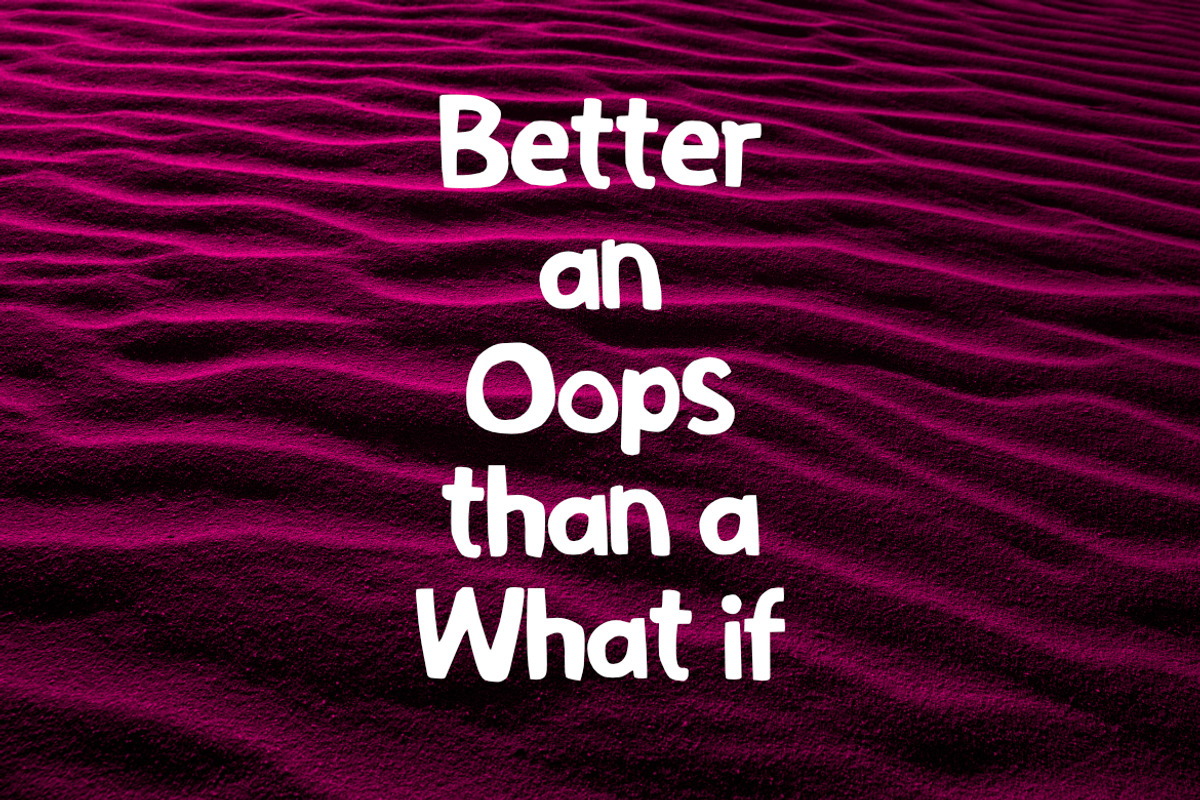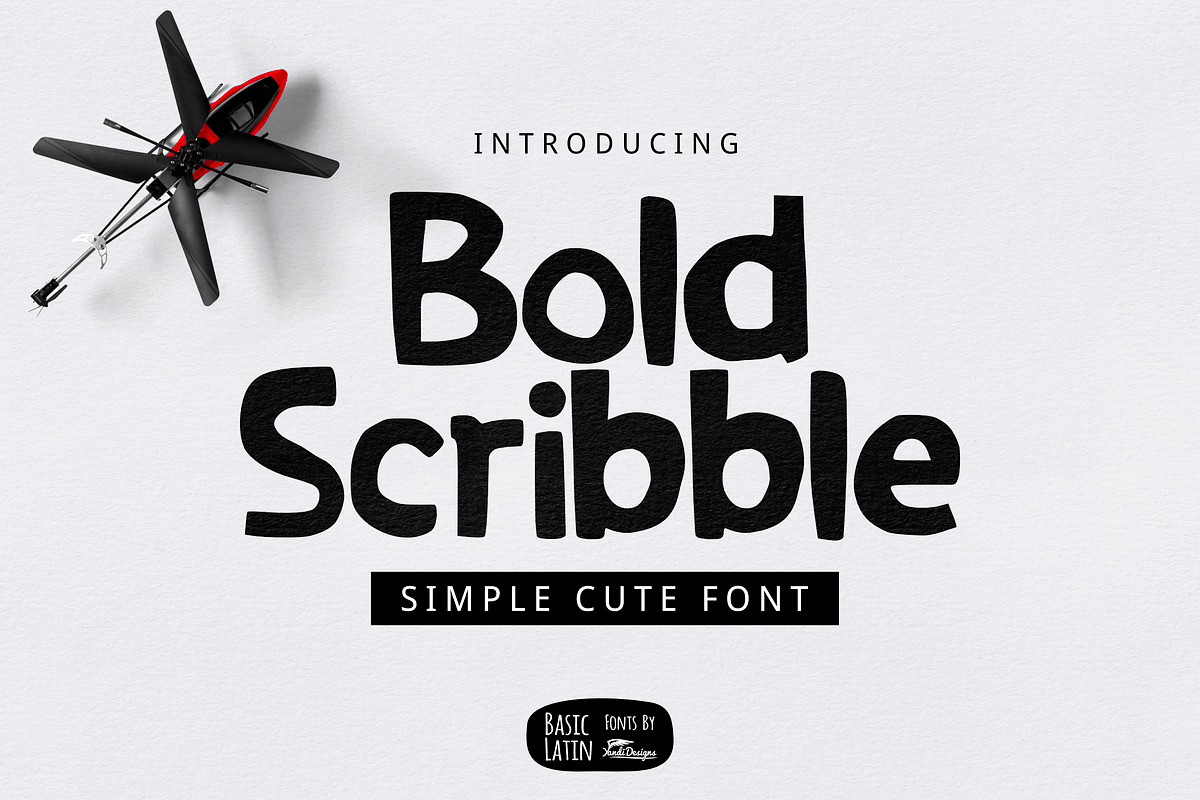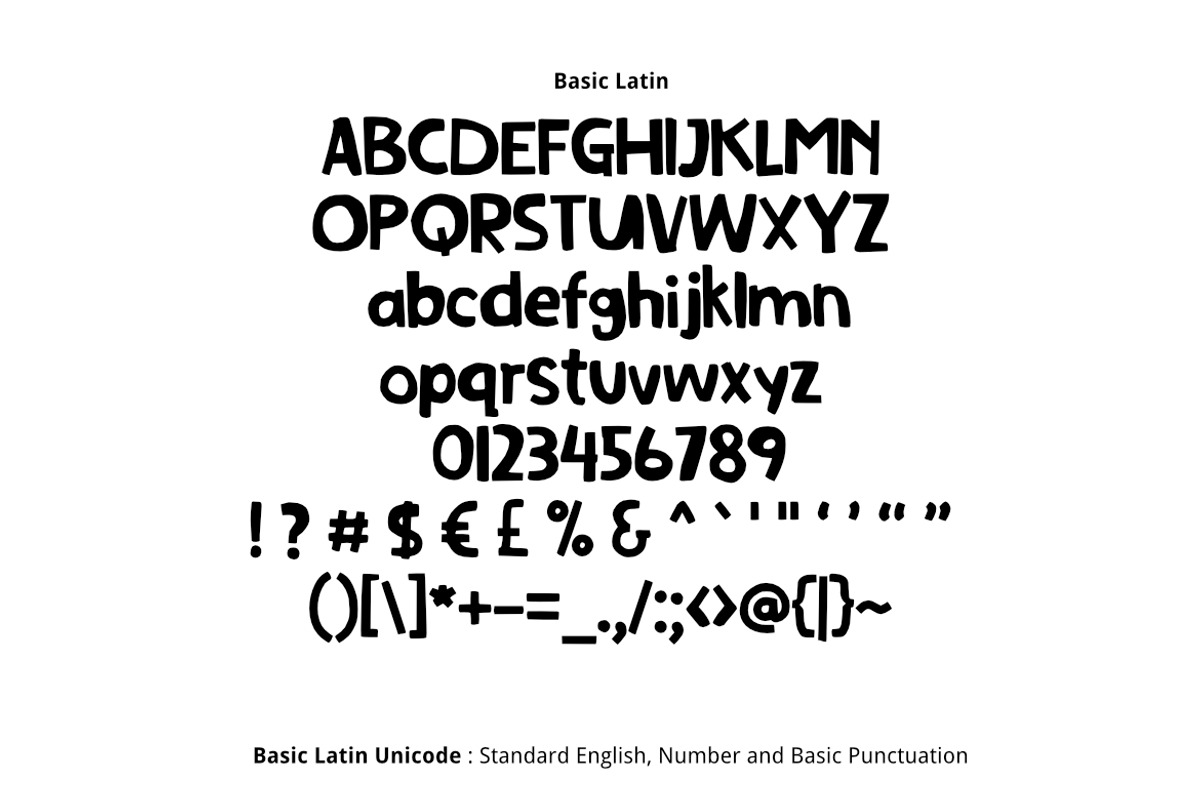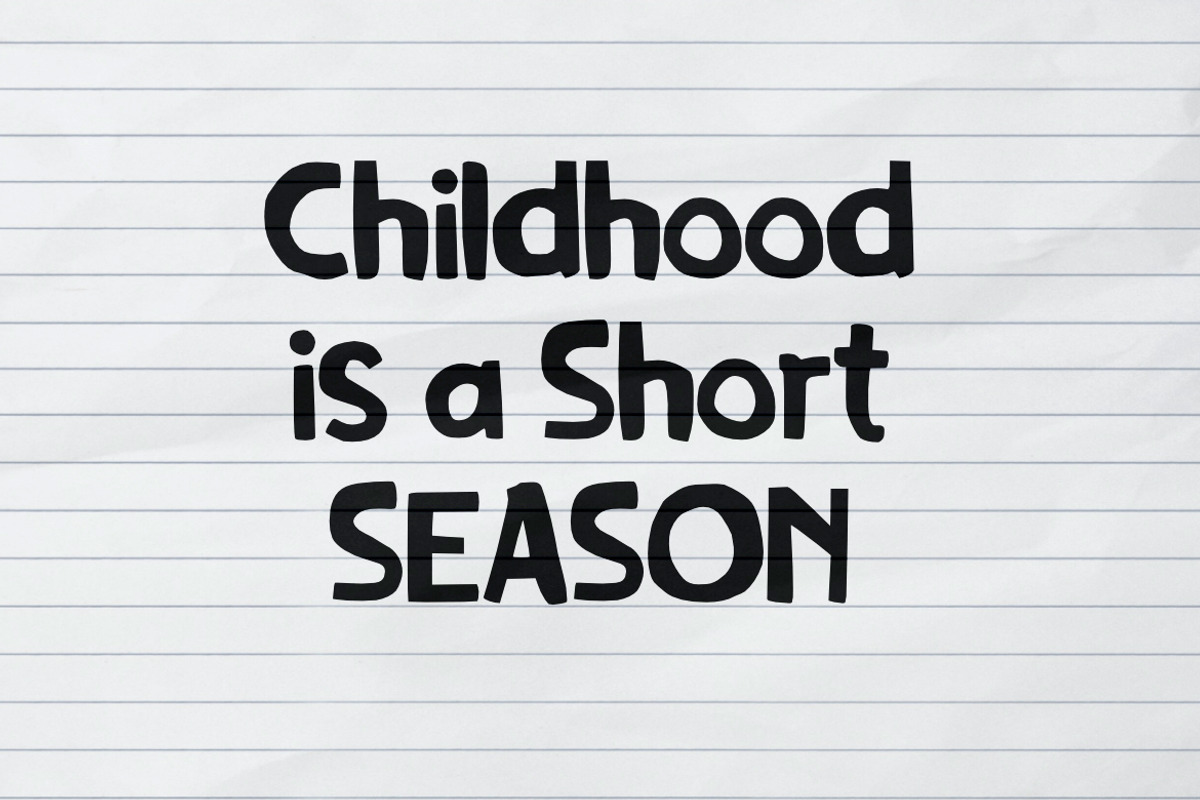
Bold Scribble Font
Bold Scribble Font is simple cute multipurpose handmade font, suitable for many project children book, quotes, logo , heading , title etc.
Bold Scribble Font by YandiDesigns fits naturally into Branding, posters, packaging, typography.